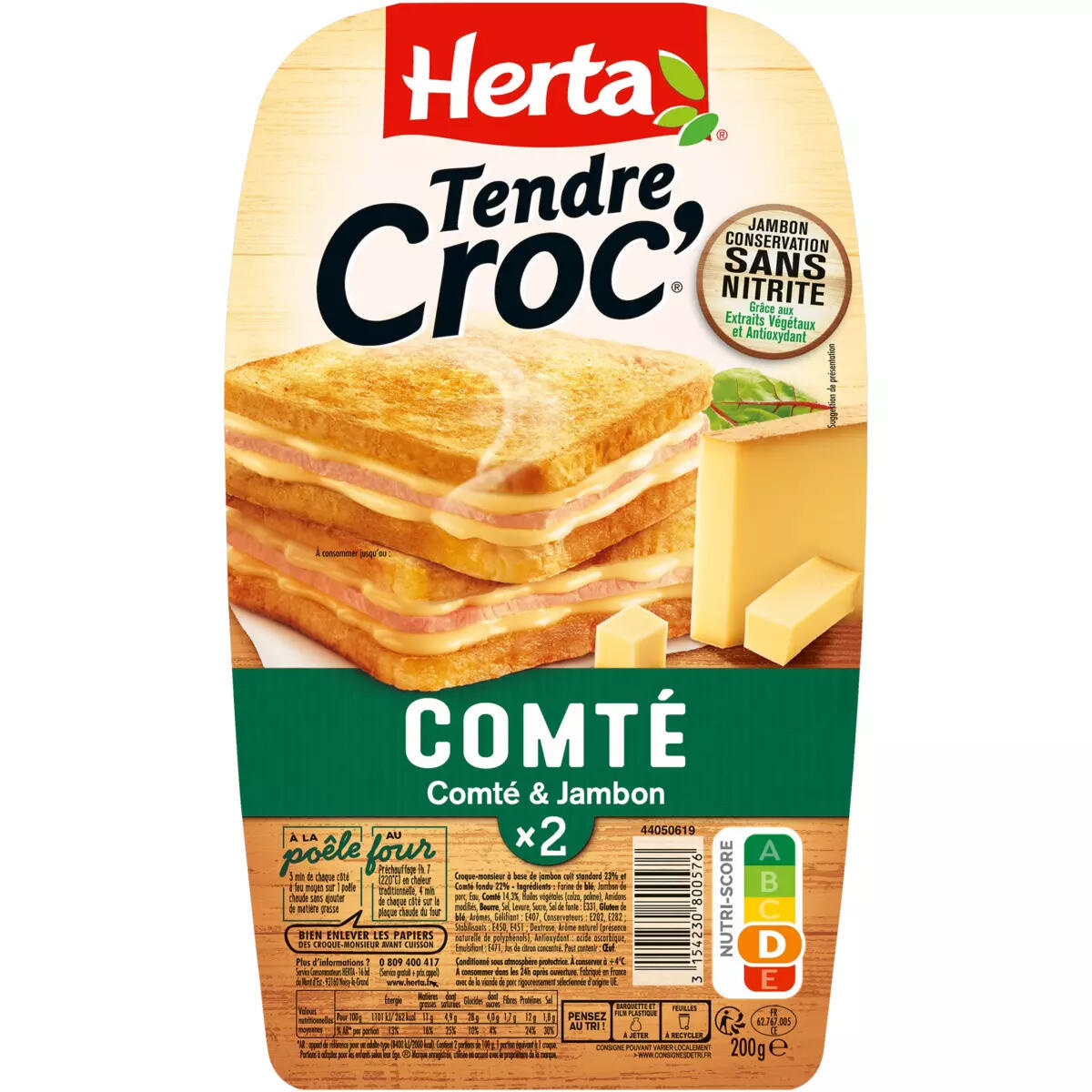
Font used for “Tendre Croc’” on Herta croque‑monsieur packaging (France)
Could anyone identify the script used for “Tendre Croc’” on Herta’s Tendre Croc’ Comté & Jambon packaging? I bought this ready‑to‑heat croque‑monsieur in a French supermarket in July 2025 (image attached). The brush‑style script is bold and slightly slanted, with a distinctive rounded “C” and an apostrophe after “Croc’”.
If this is custom lettering, I’d appreciate recommendations for similar commercial fonts. Thank you!